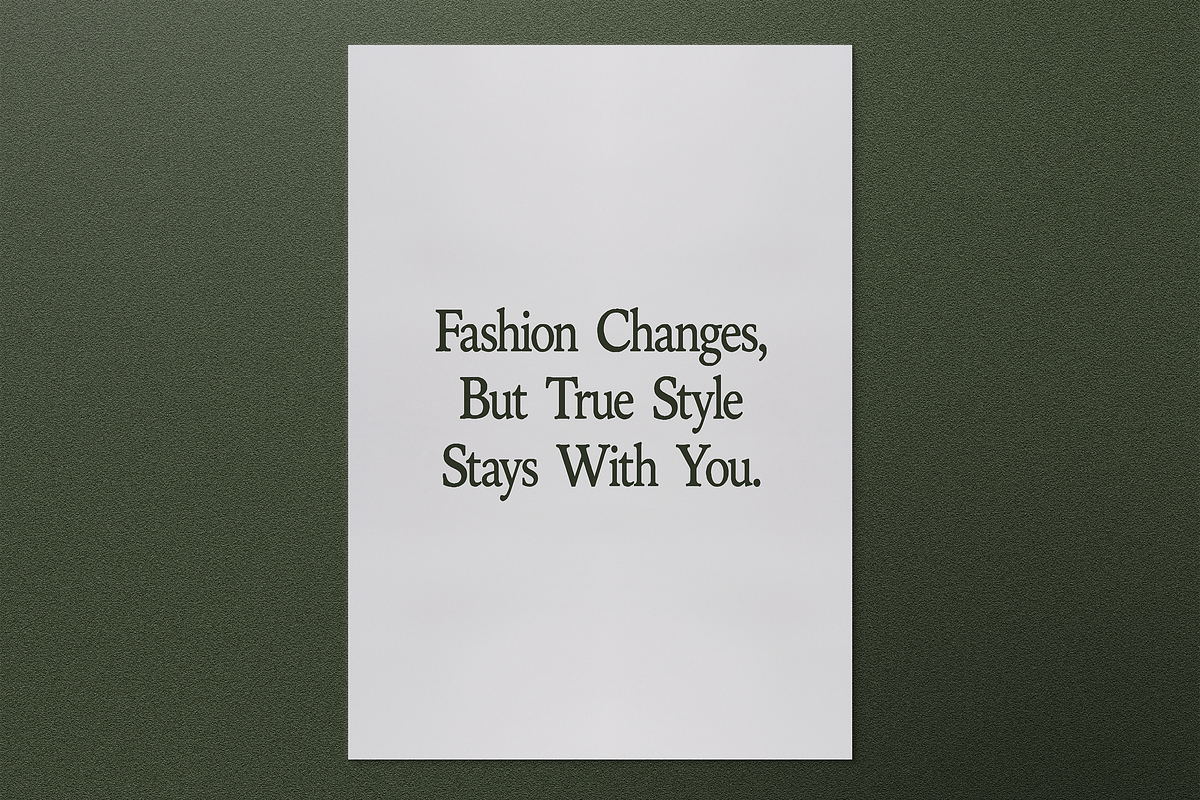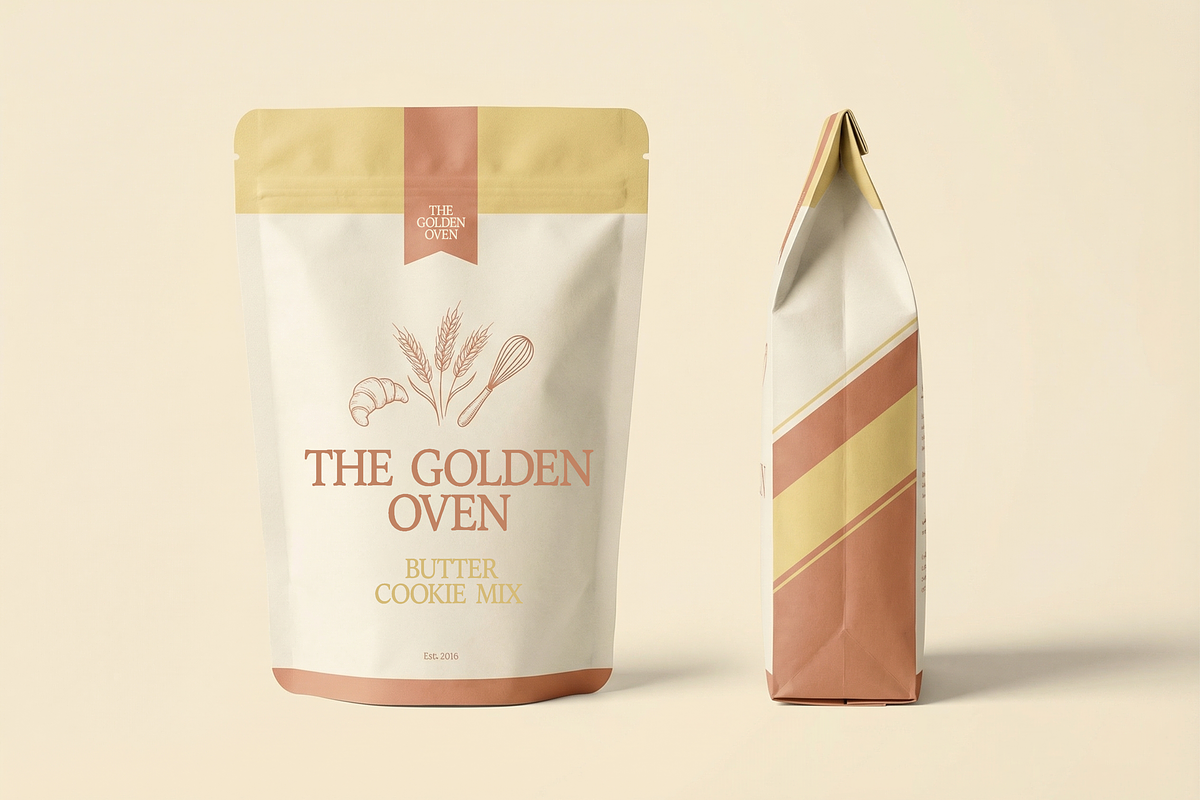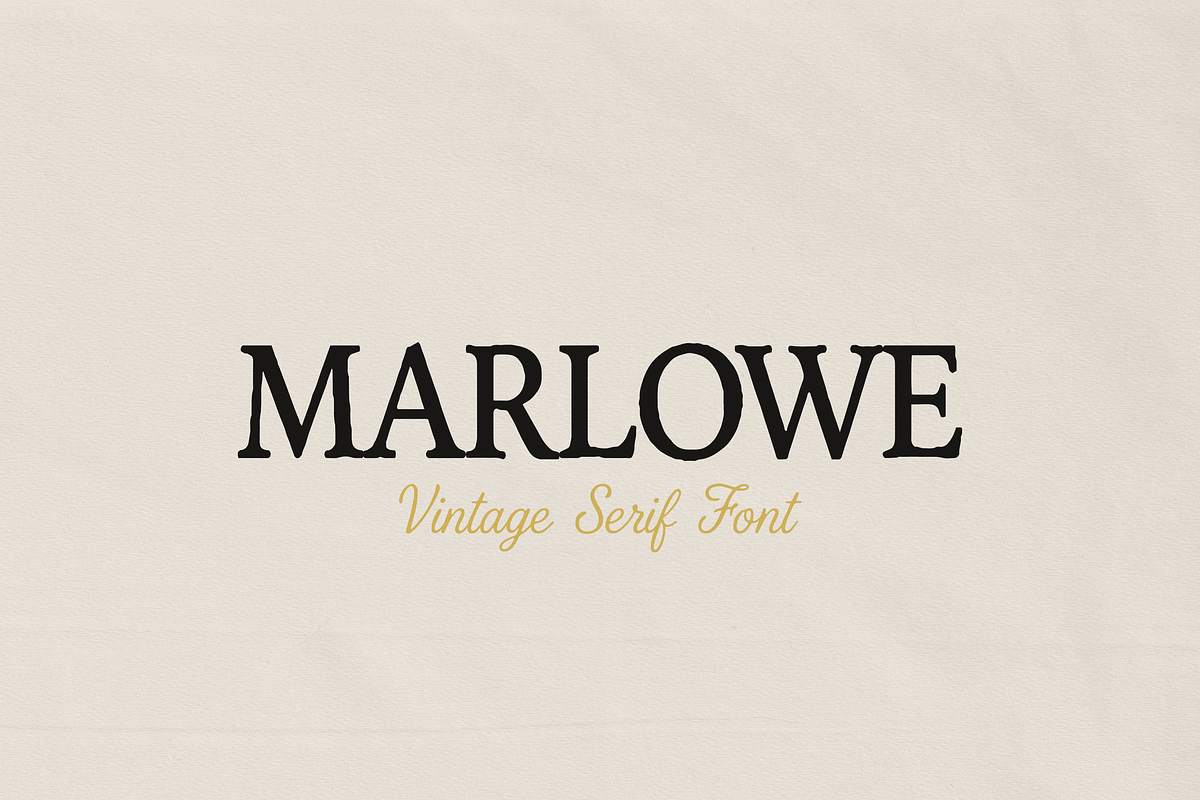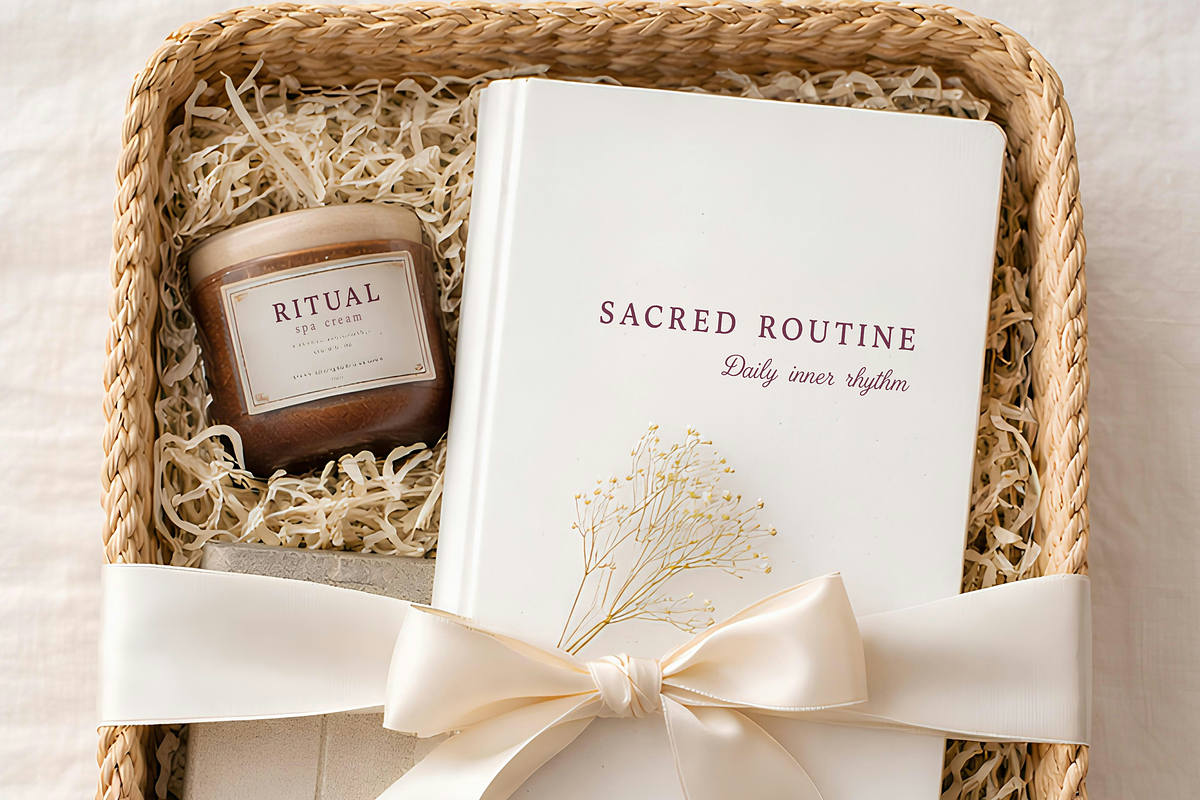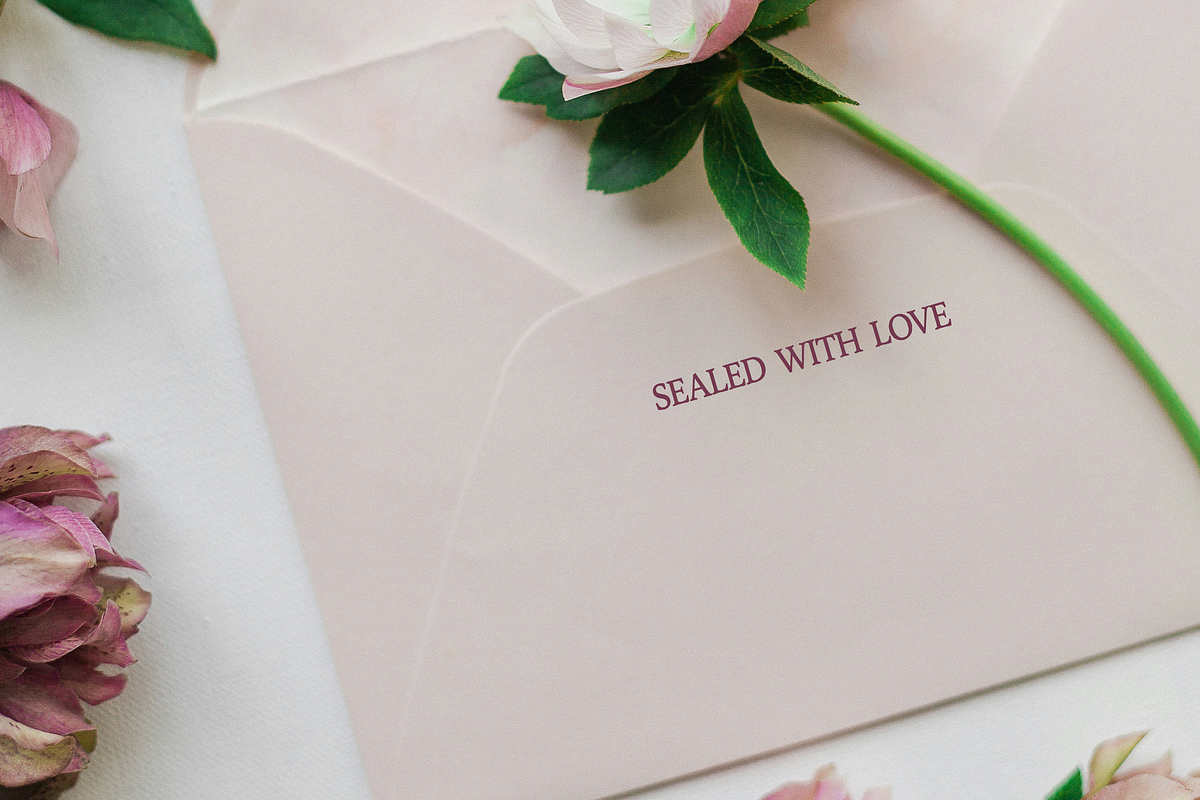
Marlowe Vintage Serif Font
Marlowe Vintage Serif Font is a refined display serif with a timeless vintage character and strong editorial presence. Designed with elegant proportions, subtle irregularity, and classic serif details, it brings warmth, personality, and sophistication to any layout.
Marlowe works beautifully for branding, logos, packaging, labels, invitations, posters, book covers, and editorial design. Its bold yet graceful letterforms make it especially effective in larger titles and statement typography, where the texture and character of the serif details can really shine.